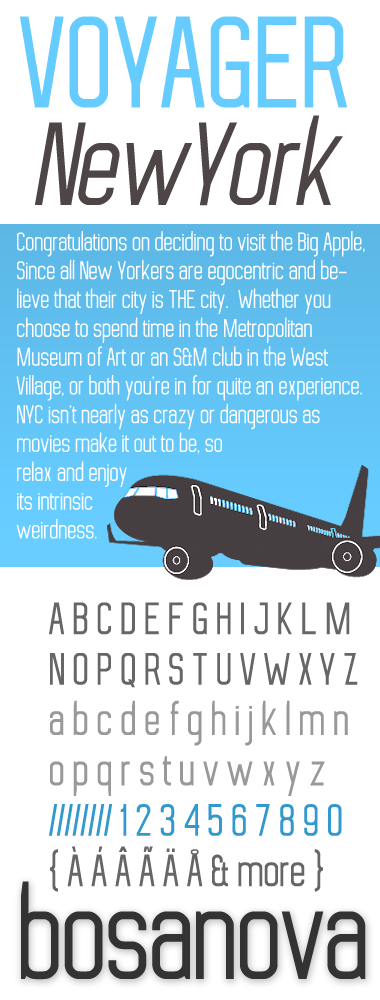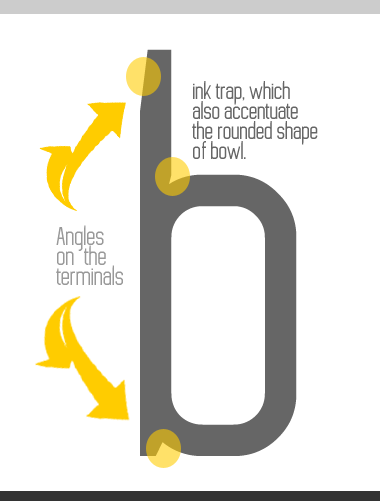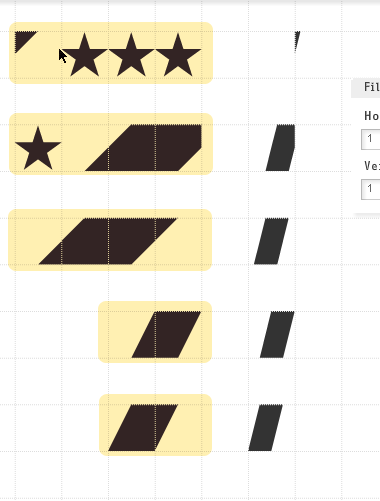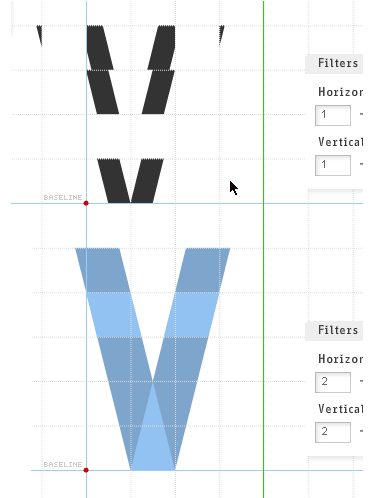
• a 2x2 brick size font.///////////////// I had fun playing around with this font, espacialy small details which are hardly noticeable: diatrics, odd lenght angles, compromise the design itself of a glyph with kerning and aspect ration with the rest of the alphabet. well fell free to spot me anything non-harmonized. ////////////////////////////////////// 2x2 brick size VS 67.5° angles... I create bricks which can overlape the regular one on half of it... so it offer the possibilities to make odd size angle glyphs like v y, etc. Dont' know if somebody else did it before there is so many fonts now in FS, so it's hard top follow everything.
proffesional
awesome
Awesome.
And the awesomeness of the fontstruction would have been lost if not for the sample, which is why they are so important.
This is a great example of how important a good sample can really make a font. In the view pane it looks like any other font, but in the sample it comes to life. A really professional finish. Well done. 10/10
outstanding piece of work with a great eye for the details. a fav.
What font so gorgeous! Congratulations, you've got it again!
Que font tellement magnifique! Félicitations, vous avez encore une autre fois!
Great work. Djnippa is right about how the sample really makes a huge difference. Great attention to the details.
@tylo, @DjNippa, @Thalamic thanks I appreciate it. Your all true about the viewer... but the inverse is true as well some fonts in the viewer come out very nice but the font is weaker when it's installed and used in other software.
@Laynecom, @elmoyenique, @aphoria, thanks for your kind word. There is so many great fonts now in FS, I think sometime we have to pay attention to small detail to be different.
Congratulations! You've produced a wonderful piece of work, and the little details do help it to stand out.
A few suggestions:
1. It appears that you omitted the ink traps on both g and h.
2. The slashed o could be improved by extending the diagonal above and below the bowl, just as you did with its uppercase counterpart.
3. Maybe it's only the viewer, but there seems to be a spacing problem with the circumflex I and i, and also the umlaut I and i. Moving all four of them slightly to the right should solve this issue.
Again, nice job!
very well done. effective both for display and text. although you took some chances and your stylistic choices paid off, this is still a very nice conservative and clean font. the bottom of the sample made me wonder, could there be a Bosanova version with the uc using angles on the terminal and corners? now that would be a funky beat :)
@fontcollector, Thank a lot for your word and spotting me some correction. I did ghî
ï in a grid like in FS is always a challenge with the kerning. Here I wanted to keep the same kerning as the "i" because this glyph is usualy use in words which it have enough room the expend itself (Maïs old word for corn).
Slash o... I had a hard time with the diagonal... for the slash O was enough high so the diagonal fit. But for the lowercase which is a odd size I have'nt been able yet to make the samething.. but I'll work on it later
Comment by Michel Troy ~UrbanPixel~ (Upixel) 16th october 2010
recipe for overlaping 67.5 degree bricks in a 2by2 brick size font
compose and remove stars
Comment by Michel Troy ~UrbanPixel~ (Upixel) 16th october 2010
Wow this method is really smart! :D Nice clean font.
Comment by 3moDuDe 17th october 2010
@funk_king well... it's very conservative I admit :) but we go with our skills... I admire you, you explore unusual path and create great fonts, I'm a fan of your work ;)
Before completing this font I try many "terminals" but ended with a classic... I just open the clone button so if you feel for it to explore and bring it somewhere else, your more than welcome :)
@3moDuDe thank you. Probably not the first one to find these 2 overlaping brick for this angle, but took me long to find it.
Comment by Michel Troy ~UrbanPixel~ (Upixel) 17th october 2010
thanks, upixel. that's some brilliant fontstructing you have done. i probably would have never considered going from 1:1 to 2:2 filters to achieve what you have done. i looked at the file and was amazed. don't think i can do what i had in mind after trying to delete some bricks in the composite and creating a mess :( a fascinating work - even more so after seeing what's going on behind the scenes :)
Very Good! This font is my favourite.
Great work.
The way you made this font is brilliant